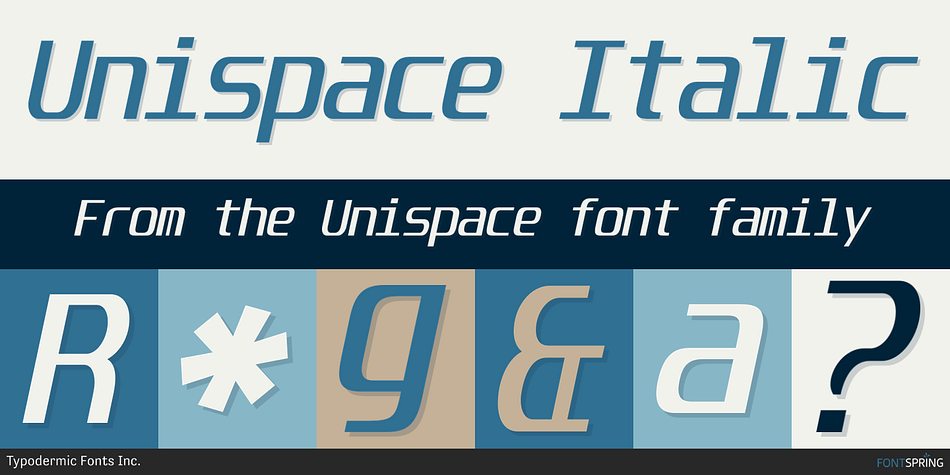
Unispace Italic
Unispace is a sans serif font family. This typeface has four styles and was published by Typodermic Fonts Inc.
Introducing Unispace, the ultimate choice for those who want to infuse their designs with a technical edge. Designed with a squarish structure, this monospaced typeface is the perfect blend of form and function, making it a must-have for designers and creatives alike.
The digital appearance of Unispace is a testament to its modernity, making it an ideal choice for any project that demands a contemporary look and feel. Its industrial flair, on the other hand, exudes a sense of confidence and strength that can help your message stand out in a crowded digital space.
But what really sets Unispace apart is its technical look, which is perfect for designers who value precision and accuracy in their work. Whether you’re designing a website, a mobile app, or a technical manual, Unispace will help you create a polished and professional look that will impress your audience.
Available in four different styles—Regular, Italic, Bold, and Bold-Italic—Unispace gives you the flexibility to choose the right style for your project. And with its monospaced design, you can be sure that every character will be perfectly aligned, no matter what.
In conclusion, Unispace is more than just a typeface—it’s a design tool that can help you take your work to the next level. So if you’re looking for a tool that can help you convey distinctive technological security, look no further than Unispace.